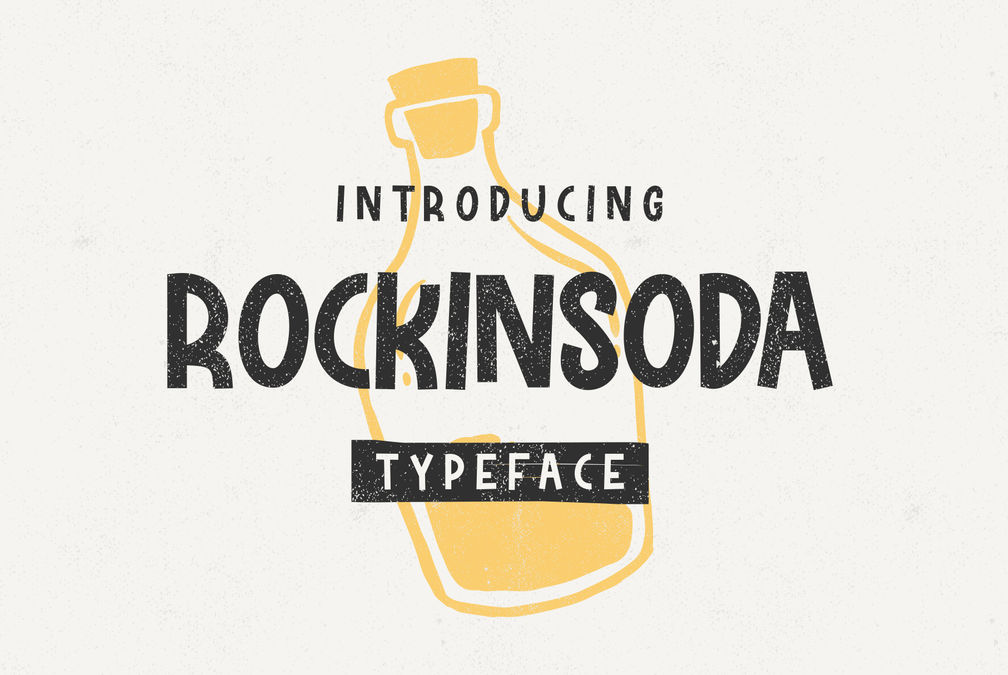
Rockinsoda – Fun Font
Rockinsoda child’s handwriting style font with little improvisation on uppercase mode, although these fonts are all uppercase fonts. This font also has alternate on lowercase letters that can be used for the last letter or word cover. This font is perfect for something related to food, children, kids illustrations, book titles, website title, writing on video, or anything you can try to gain experience in graphic design needs